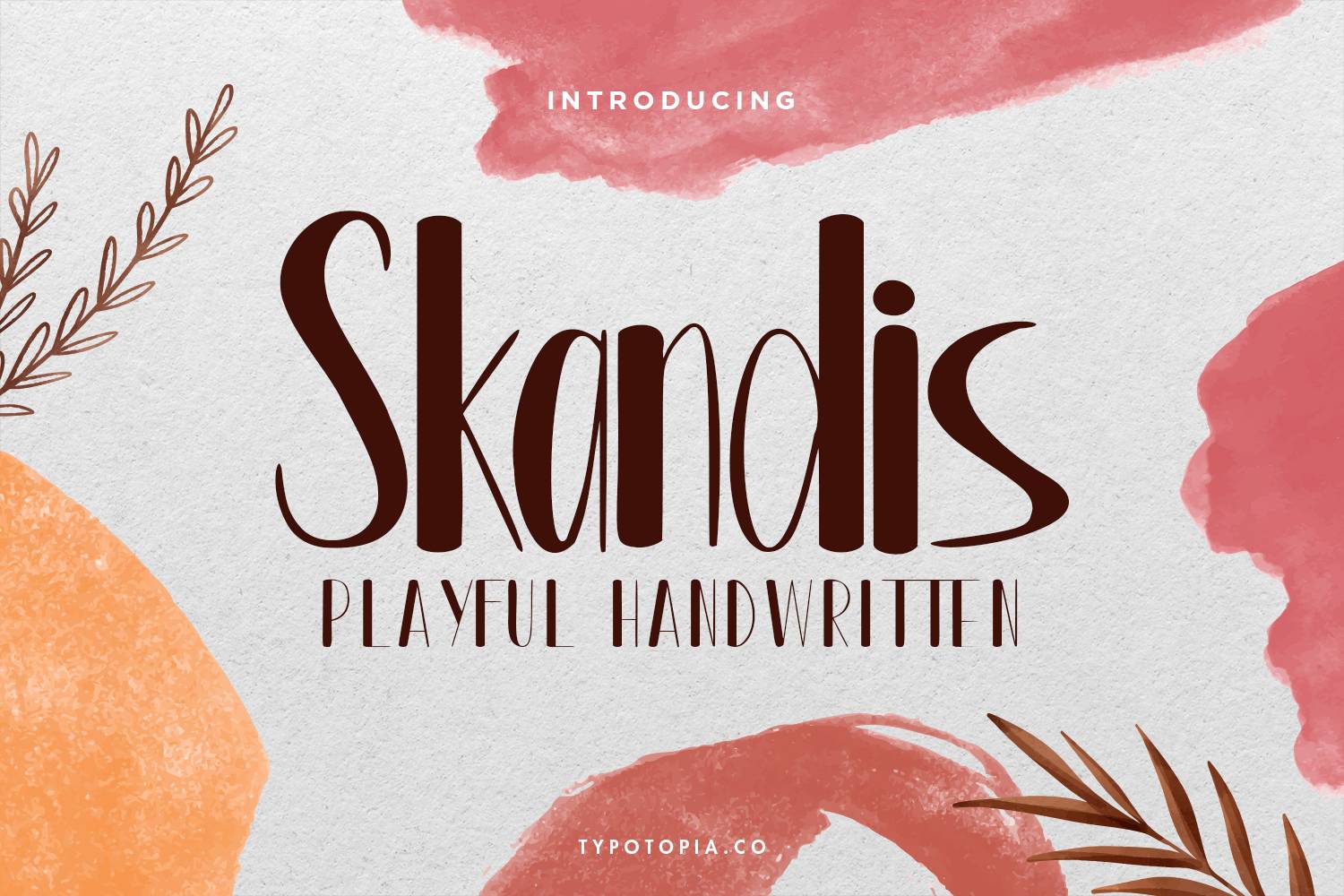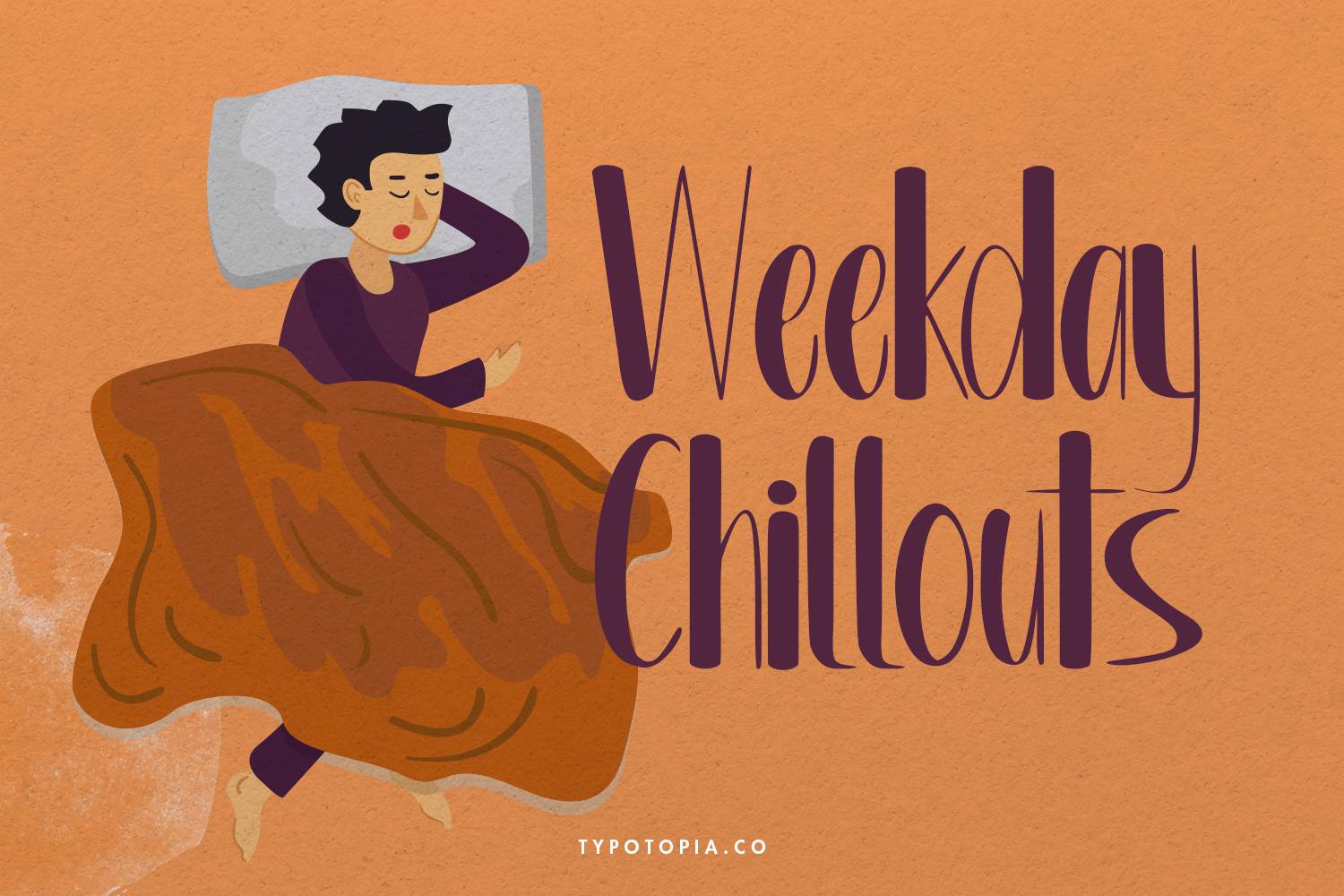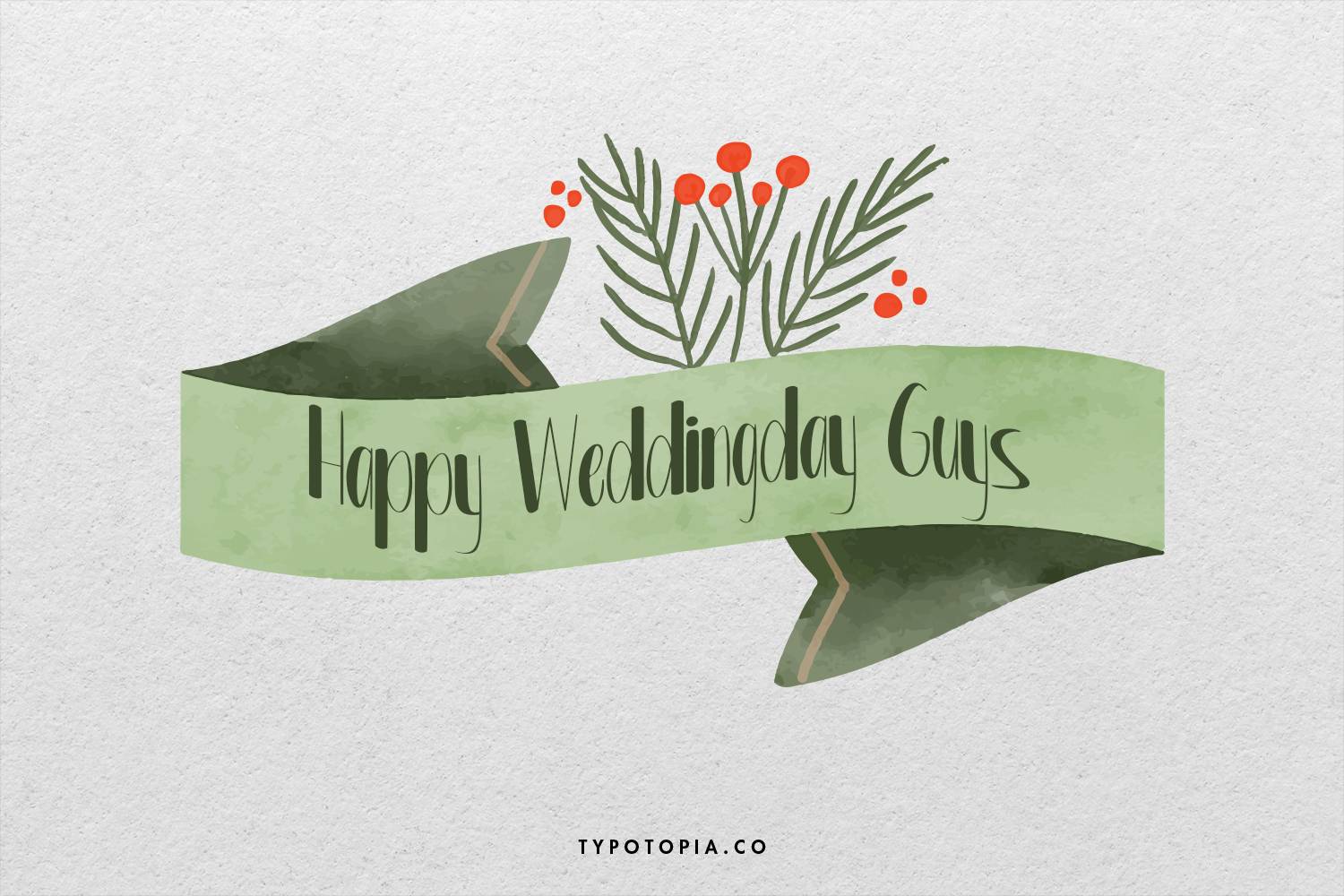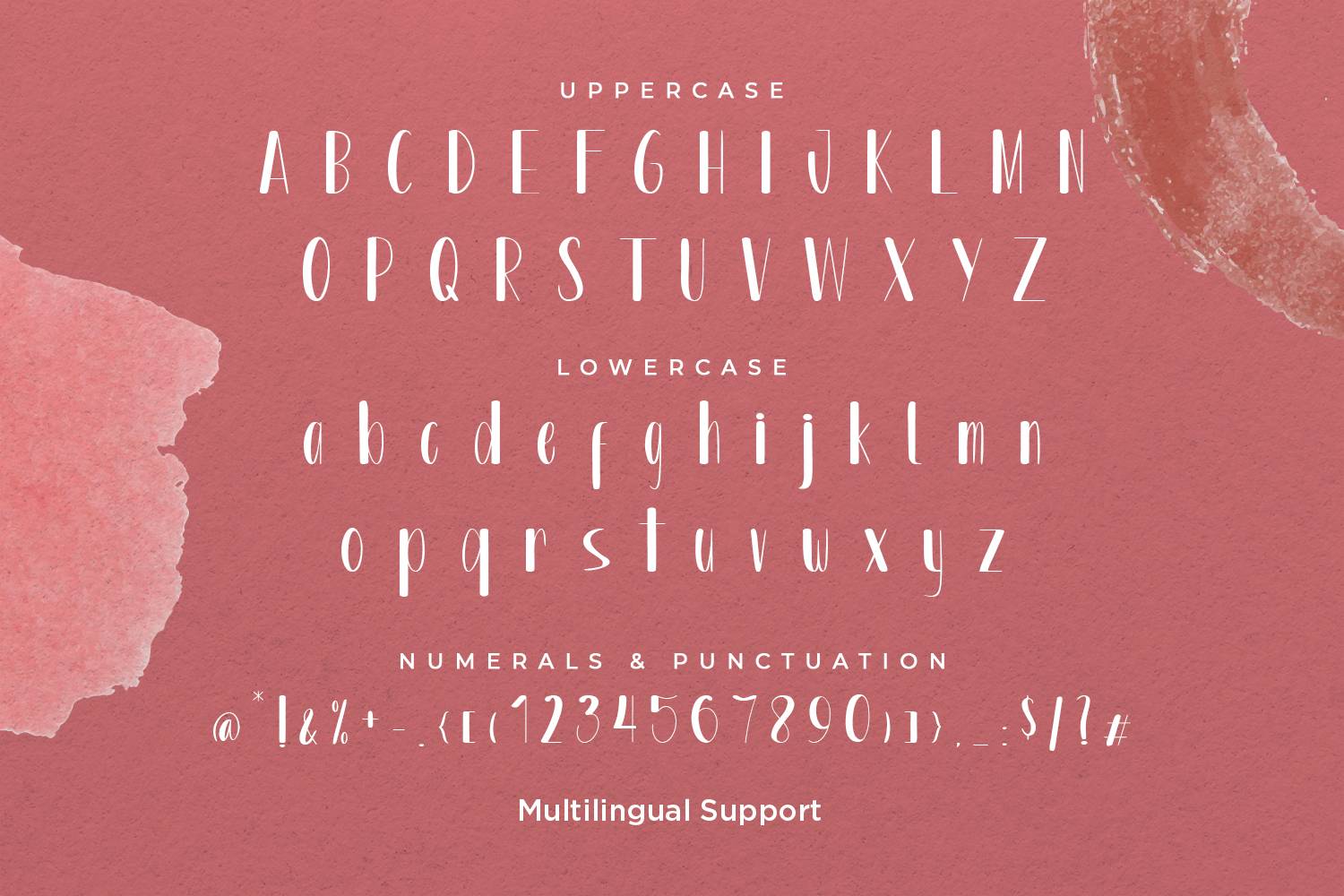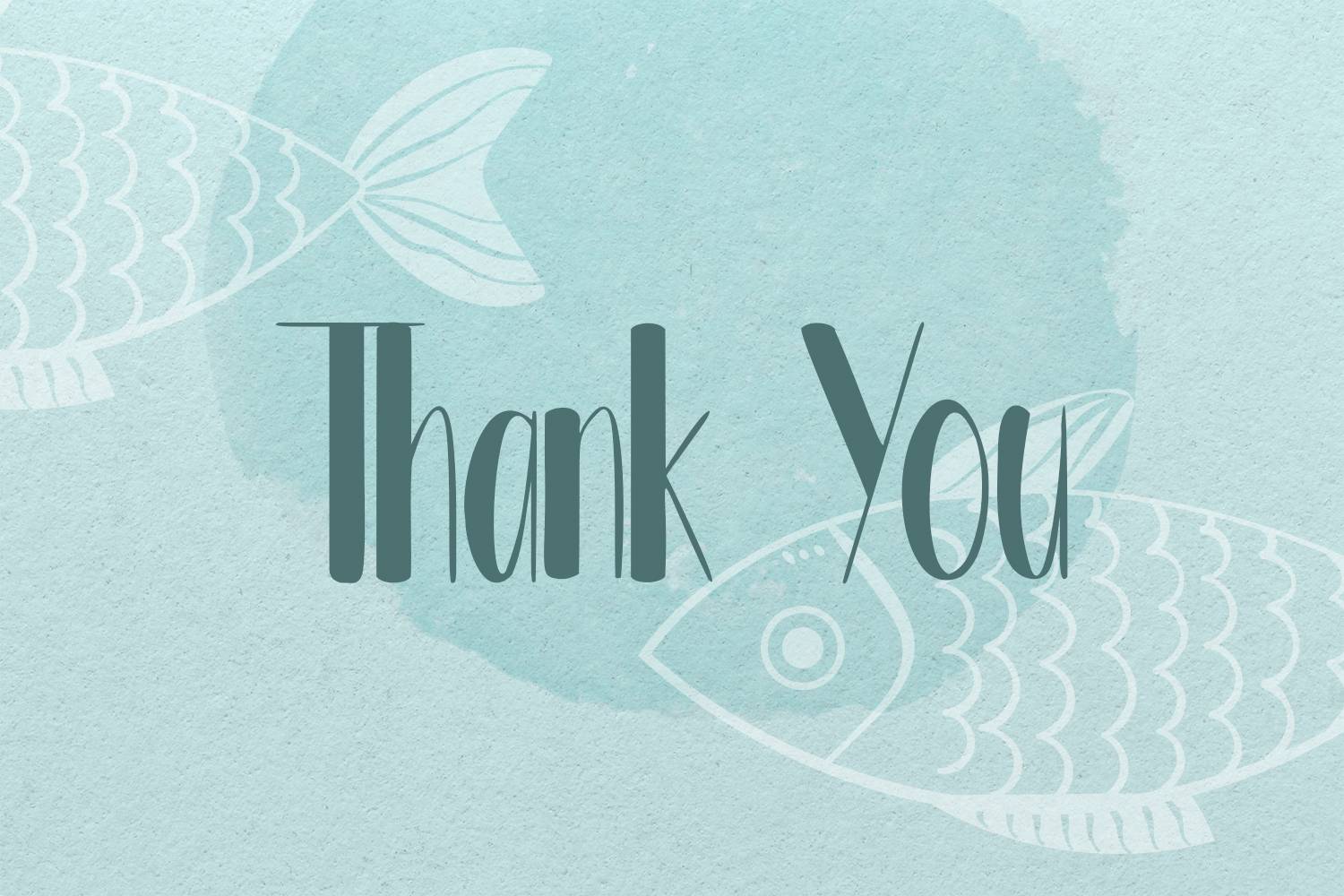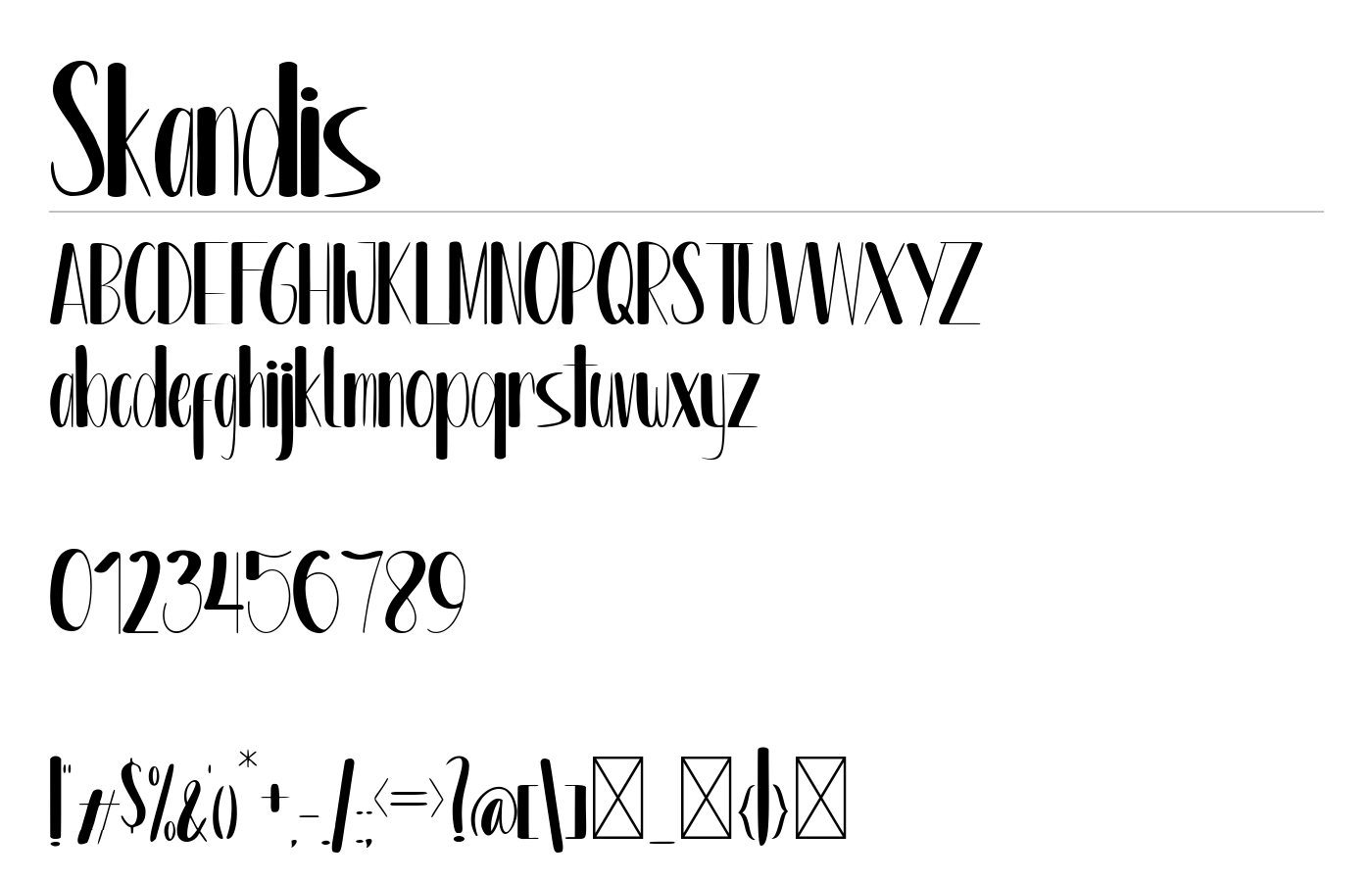
Skandis is a slender, elegant sans serif font with a distinctively tall and narrow design, featuring a playful mix of thick and thin strokes that create a charming, hand-crafted appearance. Its quirky letterforms and slightly irregular shapes give it a friendly and artistic personality, making it ideal for creative branding, headlines, and stylish editorial projects that want to convey uniqueness and modern sophistication. This font works best where a delicate yet eye-catching typographic statement is needed to stand out with a touch of Scandinavian-inspired flair.
Skandis Font
About Skandis Font
| Font family | Skandis Font |
| Designer | Typotopia |